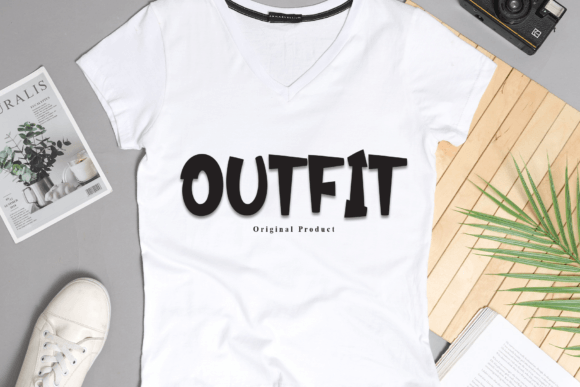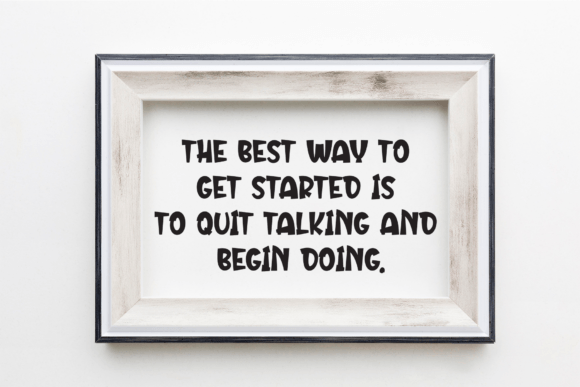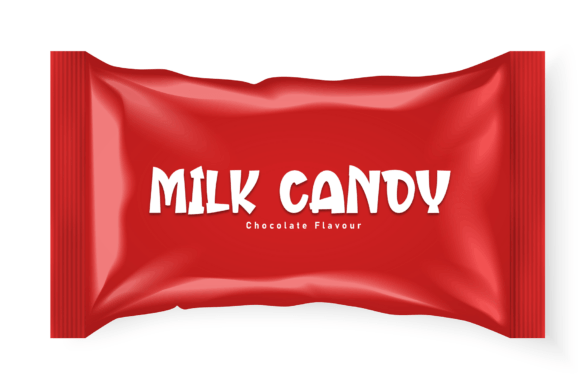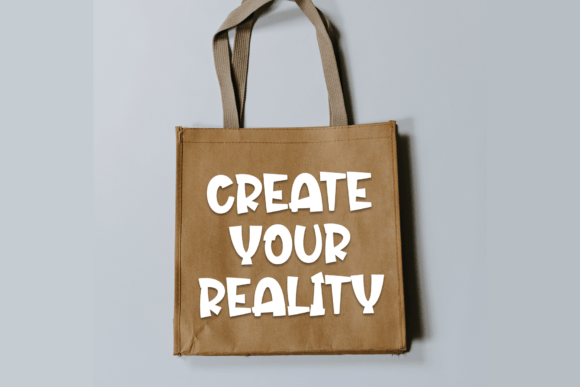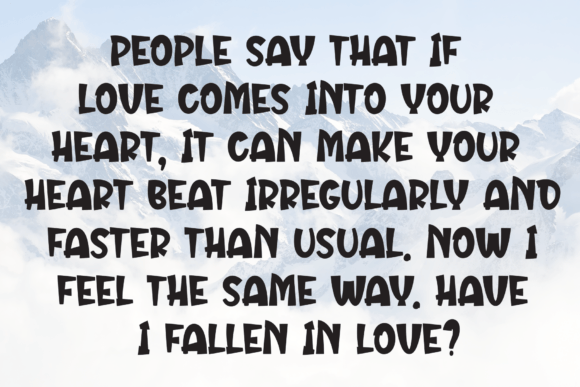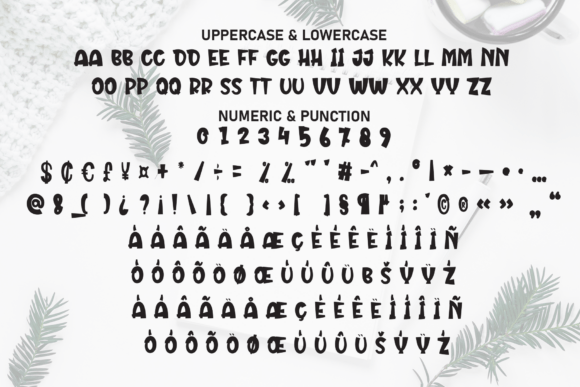
Kick off the New Year with Happy January: A Bold and Cheerful Font
As the calendar flips to January, we’re reminded of the excitement and optimism that comes with a fresh start. What better way to capture that enthusiasm than with a font that’s as cheerful as it is bold? Introducing Happy January, a playful and energetic typeface designed to add a dash of personality to your designs.
The Perfect Font for Fun and Energetic Designs
Happy January is a bold and chunky font that exudes creativity and playfulness. Its letterforms are carefully crafted to be both fun and eye-catching, making it the perfect choice for designs that need to stand out. Whether you’re creating posters, banners, social media graphics, or seasonal projects, this font is sure to bring a smile to your audience’s faces.
Key Features of Happy January
- Playful and chunky letterforms: Happy January’s letterforms are designed to be bold and attention-grabbing, with a playful flair that’s perfect for fun and energetic designs.
- Creative and versatile style: This font’s versatile style makes it ideal for a wide range of designs, from winter themes and joyful events to fresh starts and new beginnings.
- Perfect for posters, banners, and social media graphics: Happy January is optimized for use in a variety of formats, including posters, banners, social media graphics, and more.
Use Happy January for Winter Themes and Seasonal Projects
Happy January is the perfect font for winter-themed designs, from snowflakes and hot chocolate to cozy sweaters and festive decorations. Its cheerful and playful style captures the magic of the season, adding a touch of whimsy and fun to your projects.
Why Choose Happy January?
So why choose Happy January for your next project? Here are just a few reasons:
- Add a dose of positivity: Happy January’s cheerful style is guaranteed to bring a smile to your audience’s faces, making it the perfect choice for designs that need to spread joy and positivity.
- Stand out from the crowd: With its bold and chunky letterforms, Happy January is sure to grab attention and make your designs stand out from the crowd.
- Perfect for crafters and designers: Whether you’re a professional designer or a crafty DIY enthusiast, Happy January is the perfect font for anyone looking to add a touch of personality to their projects.
Design Ideas with Happy January
Here are just a few ideas to get you started with Happy January:
- New Year’s resolutions posters: Create eye-catching posters that encourage your audience to make positive changes in the new year.
- Winter-themed social media graphics: Add a touch of whimsy and fun to your social media feeds with Happy January’s cheerful style.
- Fresh start banners: Create bold and attention-grabbing banners that celebrate new beginnings and fresh starts.
Get Ready to Fall in Love with Happy January
With its bold and cheerful style, Happy January is sure to capture your heart. Whether you’re a designer, crafter, or simply someone who loves to create, this font is the perfect choice for anyone looking to add a touch of personality to their projects.